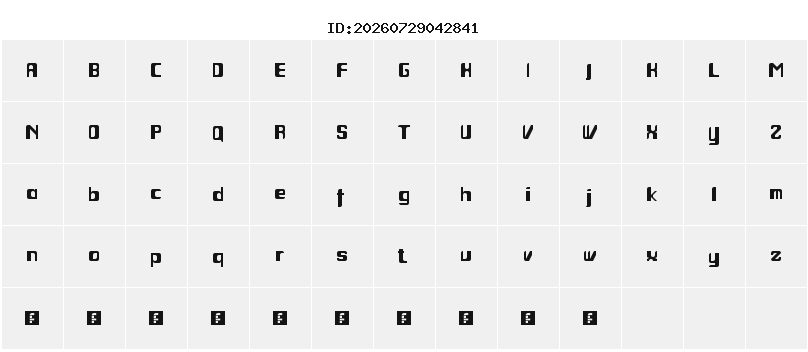
Jocoba Preview
• Font Name: Jocoba
• Font ID: FontStruct Jocoba
• Full Font Name: Jocoba Regular
• PostScript Name: Jocoba
• Character Count: 53
• Designer: mayadki
• Description: ‚ÄúJocoba‚Äù was built with FontStruct
About Jocoba.ttf
Jocoba.ttf is a modern, elegant sans-serif font designed for ultimate readability and visual harmony. Perfect for branding, headlines, web design, and print materials.